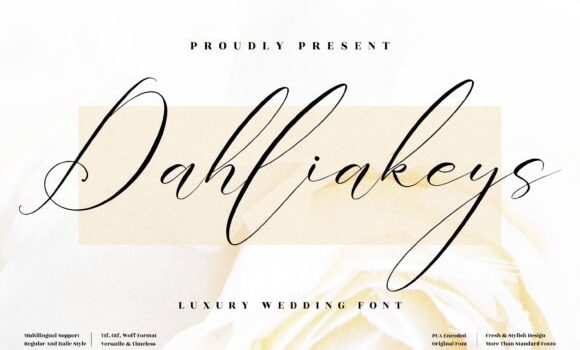
Dahliakeys Font – Free Download Introduction to Dahliakeys Font Dahliakeys is a thin lettered and graceful script font. 📸 Preview Gallery 6 images 📌 Product Name Dahliakeys Font 👤 Author Perspectype 📂 Category Explore ⬇️ Download Dahliakeys Font FREE Free